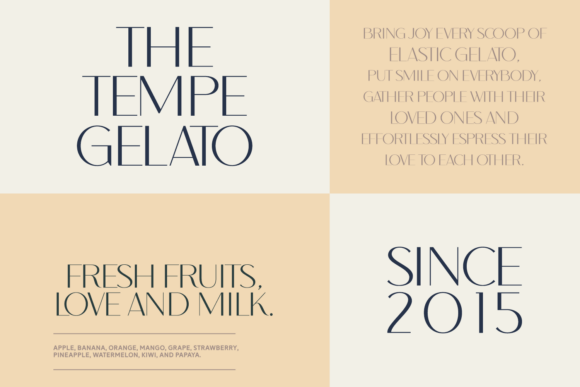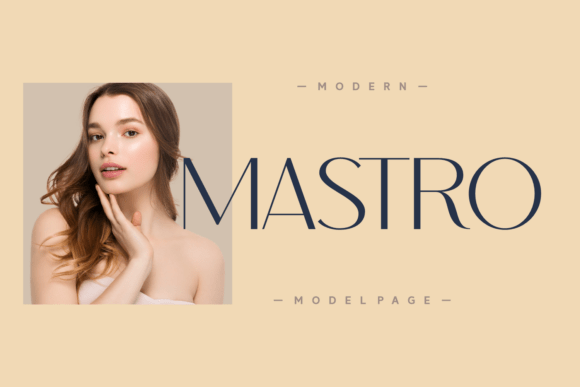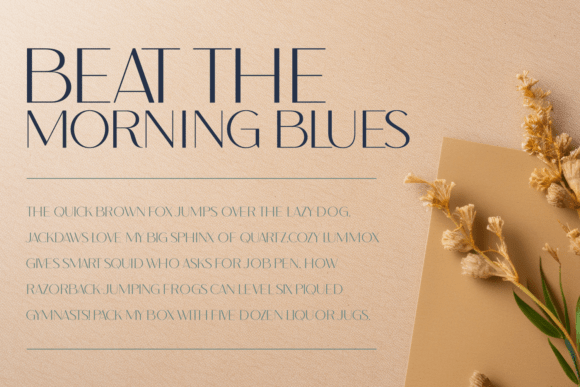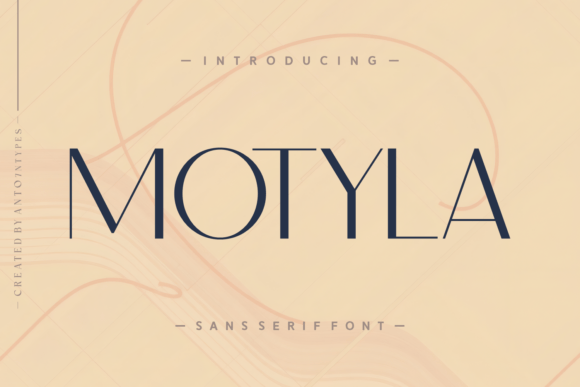
Introduction to Motyla Font
Unveiling β€œMotyla”, a versatile fusion of elegance and modernity captured in a Sans Serif font.
With its subtle charm and clean design, it makes a perfect match for photography accents, adding an authentic touch Whether it’s a magazine, branding, or a book, Motyla never fails to engage readers.
Key Features of Motyla Font